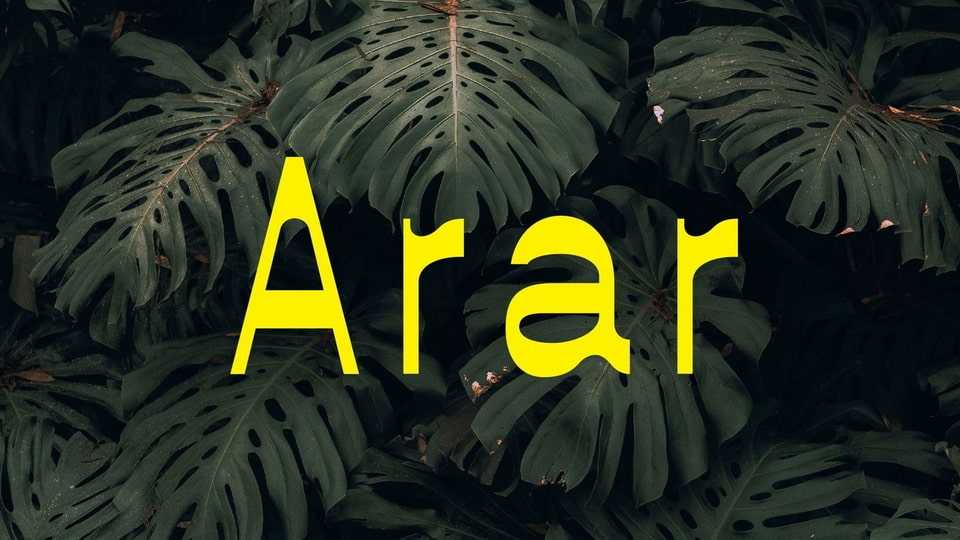
Arar Font › Fontesk
Download Arar font, a contemporary display typeface designed in 2021 as a reversed-contrast reinterpretation. It comes in two variations — one with sharp, straight edges and another with soft, rounded terminals — offering a balance between structure and warmth.
Designer: Backpacker